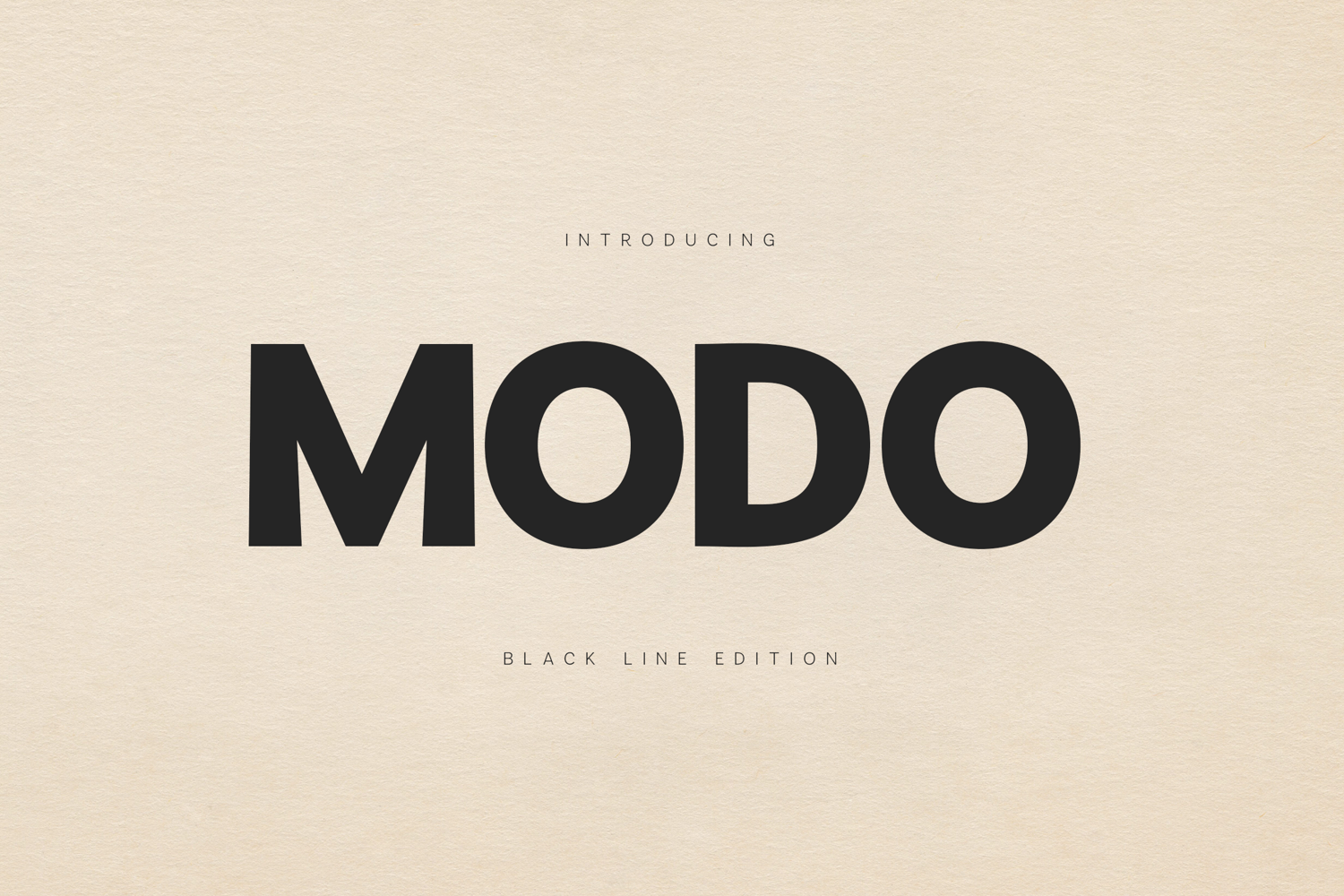
Modo - Bold Modern Sans Serif
MODO is a powerful contemporary sans serif designed for impact-driven branding, modern identity systems, and high-contrast typography.
Clean geometry meets confident weight.
It doesn’t whisper — it states.
Design CharacterMODO is:
• Bold
• Structured
• Geometric
• Corporate-ready
• Editorial strong
• International
The shapes are compact and stable, with confident vertical rhythm and strong proportions. It feels grounded and reliable — perfect for modern brands that want authority without aggression.
The Black Line Edition brings maximum presence while staying clean and minimal.
Perfect ForLogos & Wordmarks
Brand Identities
Tech Startups
Architecture Studios
Streetwear Branding
Magazine Covers
Posters
Packaging
Social Media Headers
Corporate Presentations
It works beautifully in uppercase — especially for bold statements like:
LOOPSTATE
SILENT WORDS
THANK YOU
MODO
Very strong visual hierarchy.
Optimized spacing for logo design and headline use.
Style DirectionThink:
Cream textured backgrounds
Monochrome palettes
Modern Swiss layouts
Black on beige
Strong typographic compositions
Bold editorial spreads
This is very “branding system” energy.